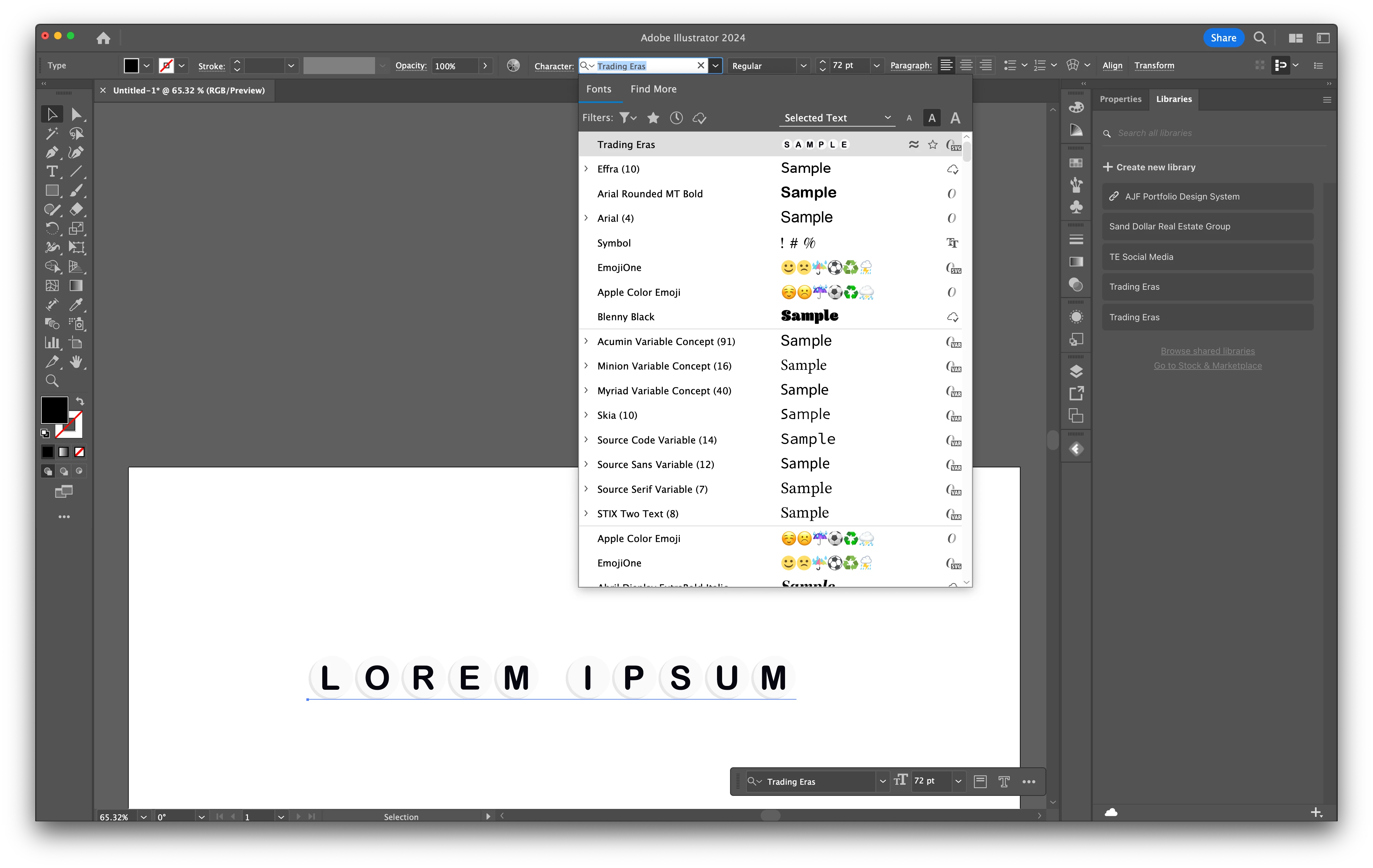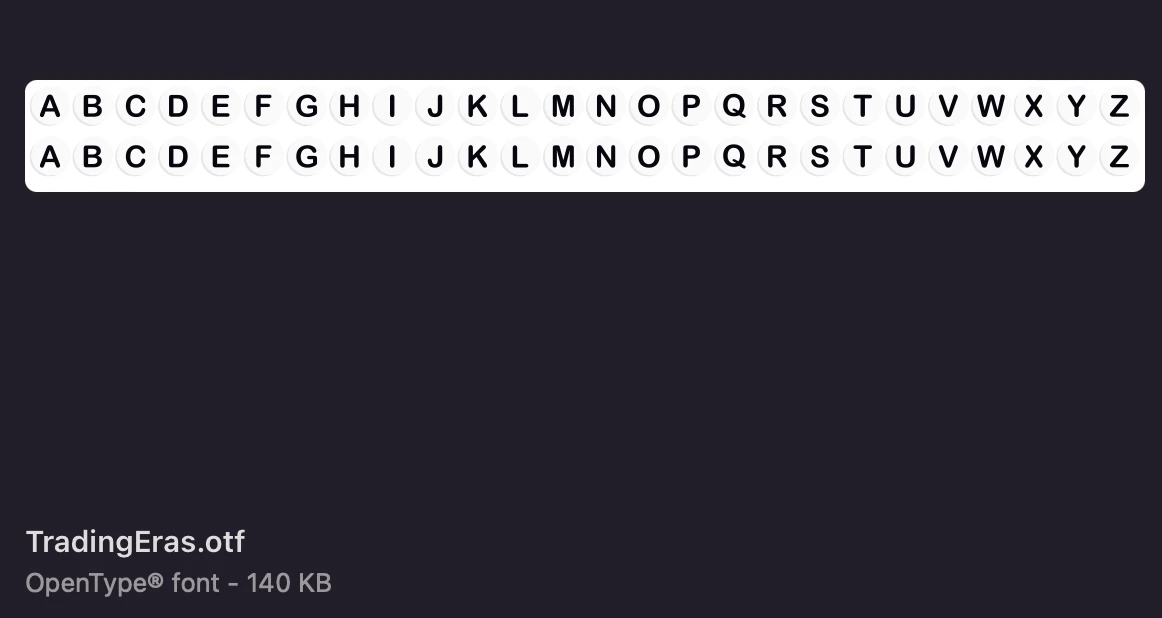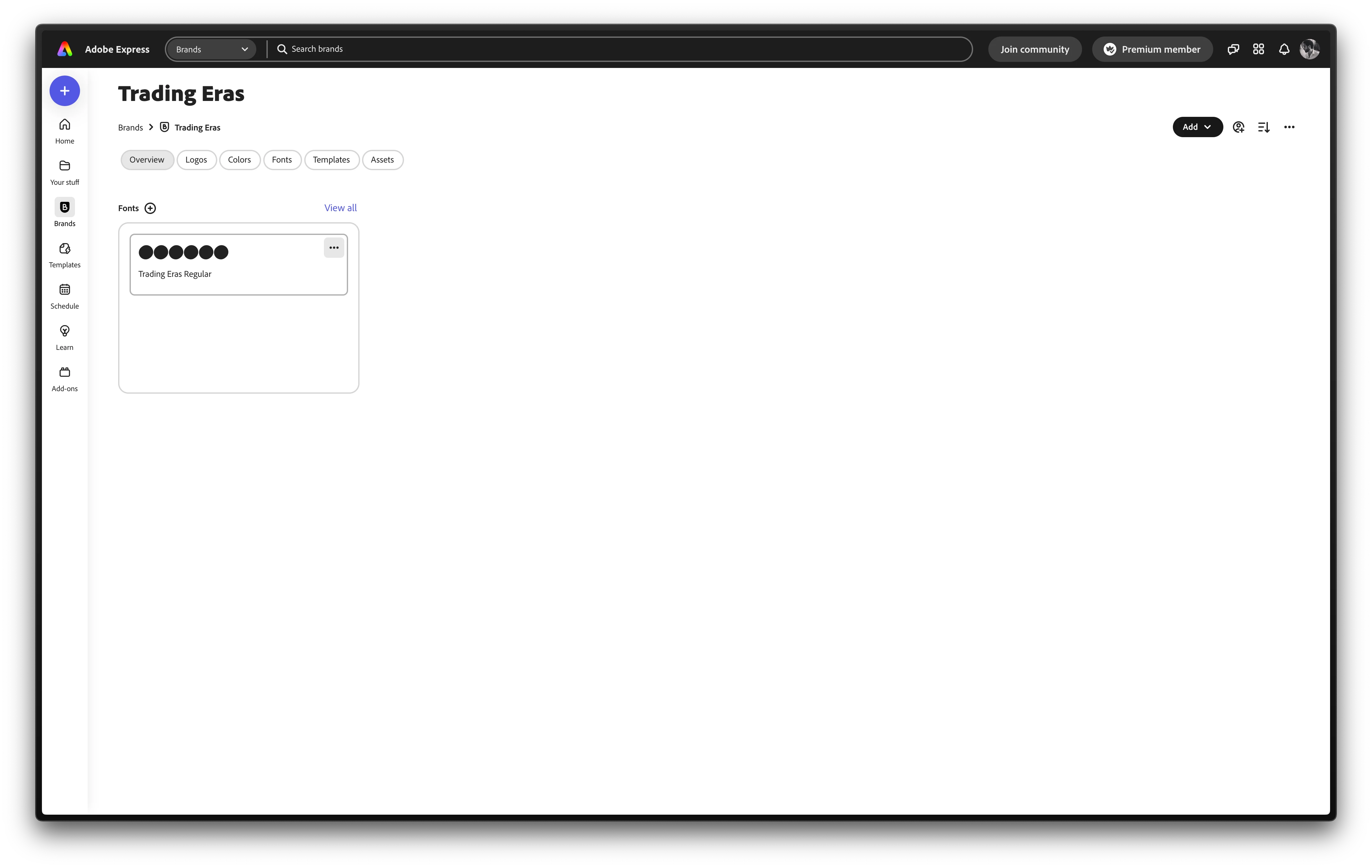
Uploaded Font Not Displaying
Hi, I uploaded a color font. It is supposed to be beads, so it has a round outline and a black letter in the middle. For some reason it is showing up as black circles instead? I really need help here to expedite content creation as I am currently having to drag images around.
Unfortunately, Express does not offer support for color fonts at the moment, which leads to these fonts being rendered using fallback outlines in black and white. This means that when the font's intended color elements cannot be displayed, the fallback version does not accurately represent the design, potentially causing visual discrepancies or loss of detail in the rendered text.
Based on the O-SVG icon displayed in Adobe Illustrator's font menu, my guess is that Trading Eras is an OpenType-SVG color font. There are a few different color font formats in existence, and browsers don't always support all of them. You can open ChromaCheck in your default browser to see which color font formats it supports. You can also check this caniuse page to get an idea of which browser versions support OpenType-SVG.
When a browser cannot display any of the color information stored in the font, it defaults to displaying the standard black and white outlines that the font may contain. In Trading Eras' case it seems that those outlines are solid circles/ovals/beads.
My understanding is that COLRv0 is the color font format with the broadest support across browsers. If you're able to obtain Trading Eras in that format, I would upload that font instead.
Yes, I am able to use the font in Illustrator without any problems.
I haven't heard of this issue before. Have you installed the font and used it any other apps on the system? I'm not sure if the issue is related to the font being in color or something else. If you would be willing to share the font with me, I can try reproducing the issue and then report it to our developers. I'll send you a private message.